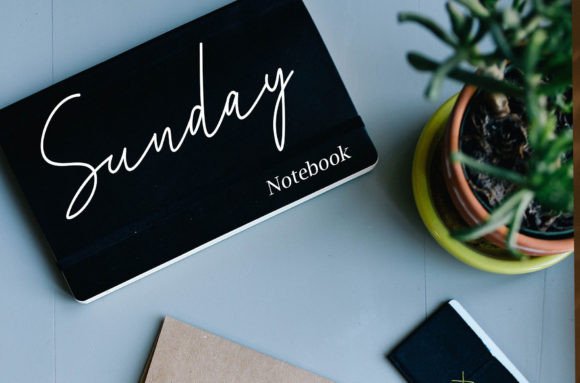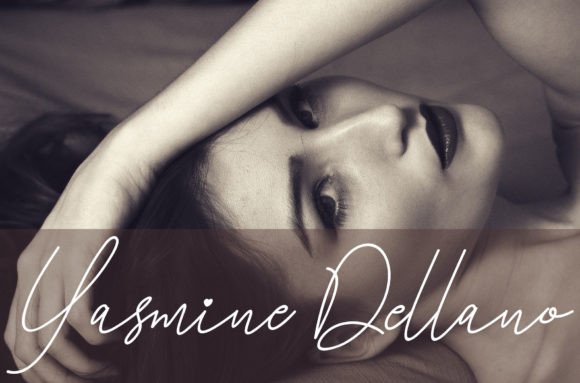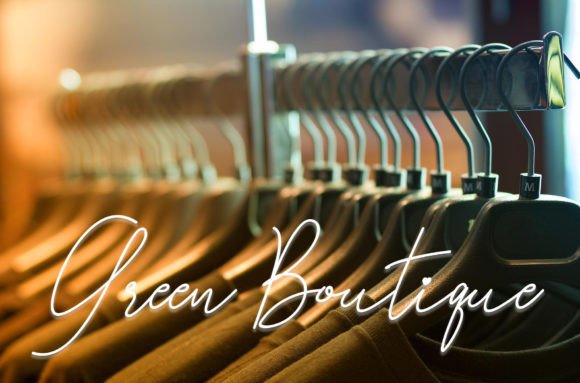
Magical Font
About Magical Font Download
The Magical Font Download is a beautiful handwritten script that adds elegance and sophistication to any project. With graceful curves and a timeless flow, this versatile typeface is designed to shine in both personal and professional work. Whether you are creating logos, wedding invitations, watermarks, or digital designs, Magical offers a radically different and stylish touch.
A Beautiful Handwritten Script with Timeless Style
Magical blends the authenticity of calligraphy with the simplicity of handwriting. Unlike ordinary fonts, this Magical script font feels expressive and luxurious, making it perfect for designs that require uniqueness. As a result, it elevates projects with beauty and personality.
Perfect for Wedding Invitations and Stationery
Wedding stationery deserves a font that expresses romance. The Magical Font is ideal for invitations, thank you notes, greeting cards, and event menus. Moreover, its soft handwritten strokes make every detail feel intimate and memorable.
Branding and Logo Design with Magical Font
Typography is key in shaping a brand’s identity. The Magical handwritten font works beautifully for boutique logos, product packaging, and corporate branding. In addition, it offers a professional yet creative personality, helping brands stand out.
Posters, Titles, and Creative Displays
The Magical Font Download is a great choice for posters, magazine titles, banners, and advertising layouts. Therefore, it performs well across both large-scale and small-scale projects, always keeping its beauty and readability intact.
In today’s digital landscape, attractive typography helps designs stand out. The Magical typeface integrates seamlessly into Instagram posts, YouTube thumbnails, Pinterest graphics, and blogs. Its handwritten aesthetic makes digital projects more elegant and appealing.
Why Designers Choose Magical Typeface
Designers seek fonts that balance charm and practicality. Many handwritten scripts lose legibility in small sizes, but the Magical handwritten script remains clear and stylish. This makes it a dependable choice for professionals as well as hobbyists.
Add Timeless Elegance to Your Projects Today
If you want a handwritten script that feels beautiful, modern, and versatile, the Magical Font Download is the perfect choice. From wedding invitations and logos to posters and social media, it enhances every project with elegance. Finally, download Magical today and let your designs shine with handwritten sophistication.